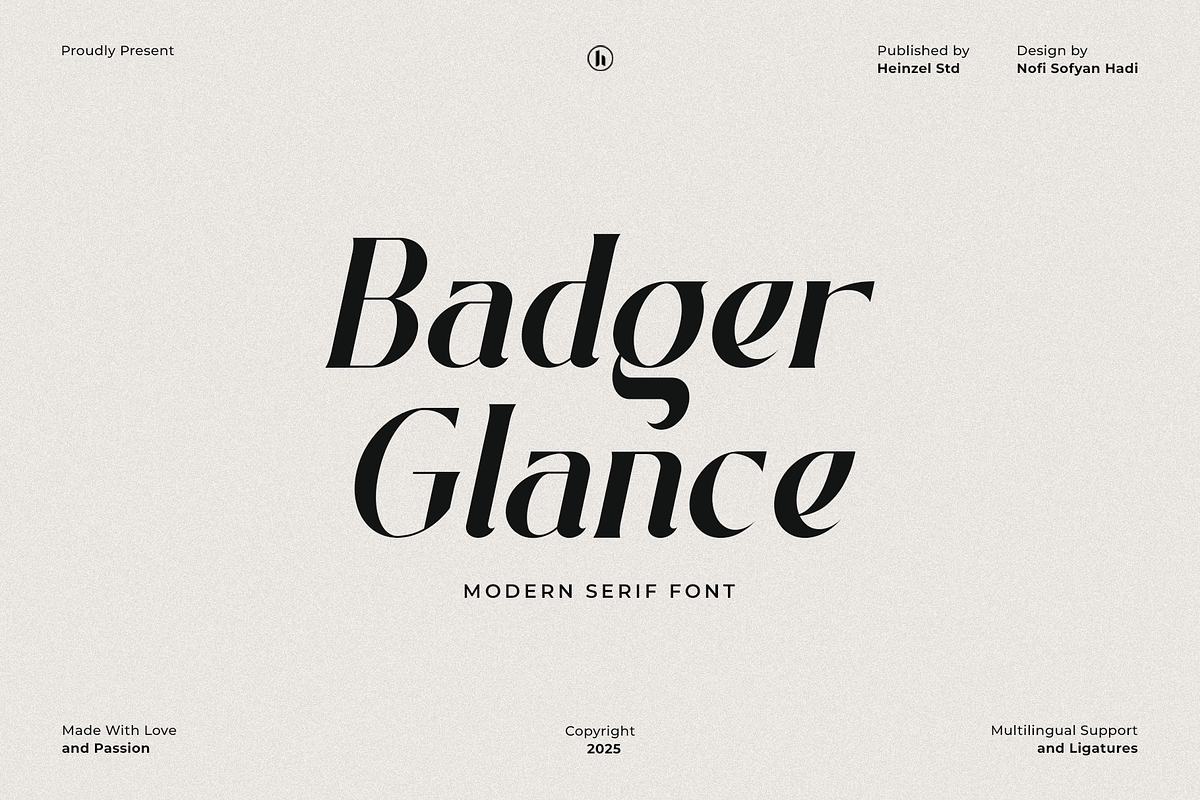
Badger Glance - Modern Serif Font
Badger Glance is a sophisticated modern serif typeface built for designers who demand elegance and versatility.
Blending timeless refinement with contemporary flair, Badger Glance features beautifully curved letterforms, stylish ligatures, and balanced proportions that feel equally at home in digital and print environments. Its luxurious details make it a natural fit for branding, editorial layouts, logo design, and high-end packaging.
Whether you're crafting a fashion magazine spread, a premium brand identity, or an upscale product label, this typeface delivers a professional and polished result every time.
- Stylish ligatures for refined typesetting